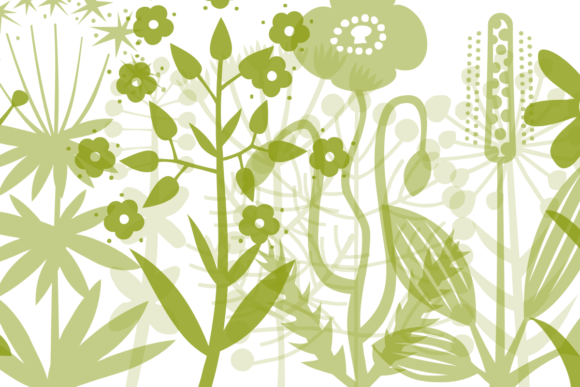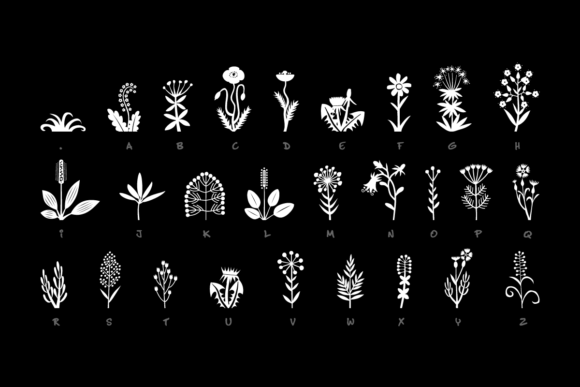
Makalu Font
About Makalu Font
Makalu is a charming and playful dingbat font designed to help you generate colorful and creative designs by typing capital and small letters as well as numbers. Its flower-themed illustrations make it perfect for projects that need a touch of cheer and joy, with its many adorable and expressive images, the results will be nothing short of lovable. Makalu is a versatile and intuitive font, making it easy to use for a wide range of projects, from designing cheerful and delightful business cards to adding a touch of fun and playfulness to a book cover design or other visual material.
One of the best things about Makalu is its lovely and cheerful illustrations. The many flower-centered pictures make Makalu unique and memorable for projects that need a touch of cheer and joy. Whether you’re designing a business card for a friendly florist or adding a touch of nature to a decorative pattern or other visual element, Makalu will add a touch of personality and playfulness to your design.
Another great thing about Makalu is how easy it is to use. With a few keystrokes, users can create a wide range of colorful and memorable designs. The many cute and playful pictures make Makalu easy to read and use, while its versatile design makes it perfect for a wide range of projects. Both its small and large fonts come with clear, concise instructions to help users get started quickly.
In addition to its charming designs and cheerful beauty, Makalu is also just great design. Its many adorable and expressive illustrations make it a perfect option for projects that need a touch of joy and playfulness. Whether you’re designing a business card for a friendly florist or adding a touch of nature to a decorative pattern or other visual element, Makalu will add a touch of character and personality to your design.
Overall, Makalu is a lovable and memorable font that can help you create colorful and creative designs. Whether you’re designing a business card for a friendly florist or adding a touch of nature to a decorative pattern or other visual element, Makalu’s many cute and playful pictures make it an excellent option for projects that need a touch of joy, playfulness and fun.